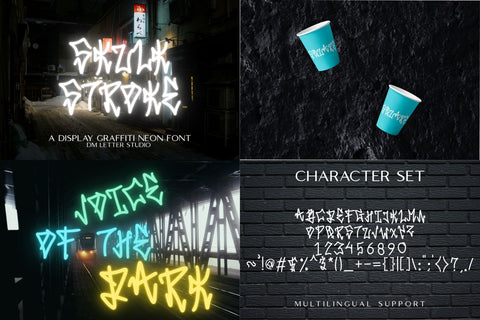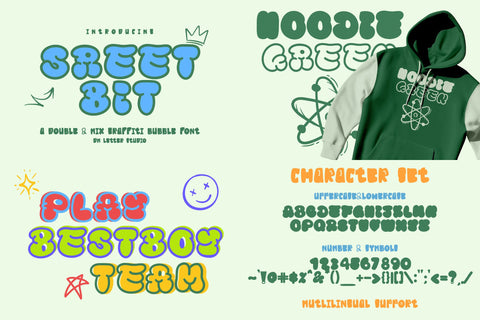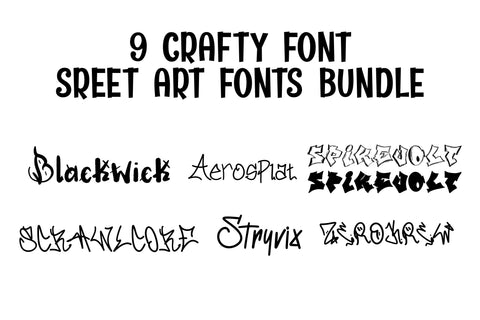
Street Art Font Bundle: Bold Tag and Brush Styles
Meet Street Art Font Bundle: Bold Tag and Brush Styles
Street Art Font Bundle is a high-impact collection of graffiti and urban display fonts built for bold, expressive design. This bundle brings together raw tag styles, brush strokes, sketch textures, and bubble graffiti lettering into one powerful toolkit. Each font carries a unique street personality, giving you the flexibility to create designs that feel loud, modern, and full of attitude. Use this bundle for streetwear branding, music posters, gaming graphics, YouTube thumbnails, sticker designs, and urban merchandise. As a result, your typography feels dynamic, edgy, and impossible to ignore.
Included fonts in this bundle
- Aerosplat
- Blackwick
- Spikevolt
- Scrawlcore
- Skulk Stroke
- Riot Sketch
- Zerokrew
- Stryvix
- Streetbit
Fast layouts with the Street Art Font Bundle
Start by choosing a main font for your headline, such as a bold tag or bubble style. After that, combine it with a sketch or brush font from the bundle for layering effects. Because each font has strong personality, keep backgrounds simple to maintain readability. In addition, use contrasting colors and outlines to create depth and energy. Finally, try palettes like black and neon green, red and white, purple and cyan, or orange and charcoal for strong street visuals.
Creative uses and quick wins
- Streetwear logos and apparel graphics
- Music posters, DJ flyers, and album covers
- Gaming thumbnails and esports branding
- Sticker packs and urban social media content
- 9 unique graffiti and street-style fonts
- Uppercase and lowercase letters
- Numbers and basic punctuation
Design tips for this Street Art Font Bundle
Use these fonts mainly for headlines, logos, and short phrases. Also, mix different styles to create layered graffiti compositions. For print, test high-contrast color combinations for clarity. For digital, scale slightly larger so details remain sharp on mobile screens. Finally, combine with spray textures, halftone dots, or paint splashes for a stronger street art look.